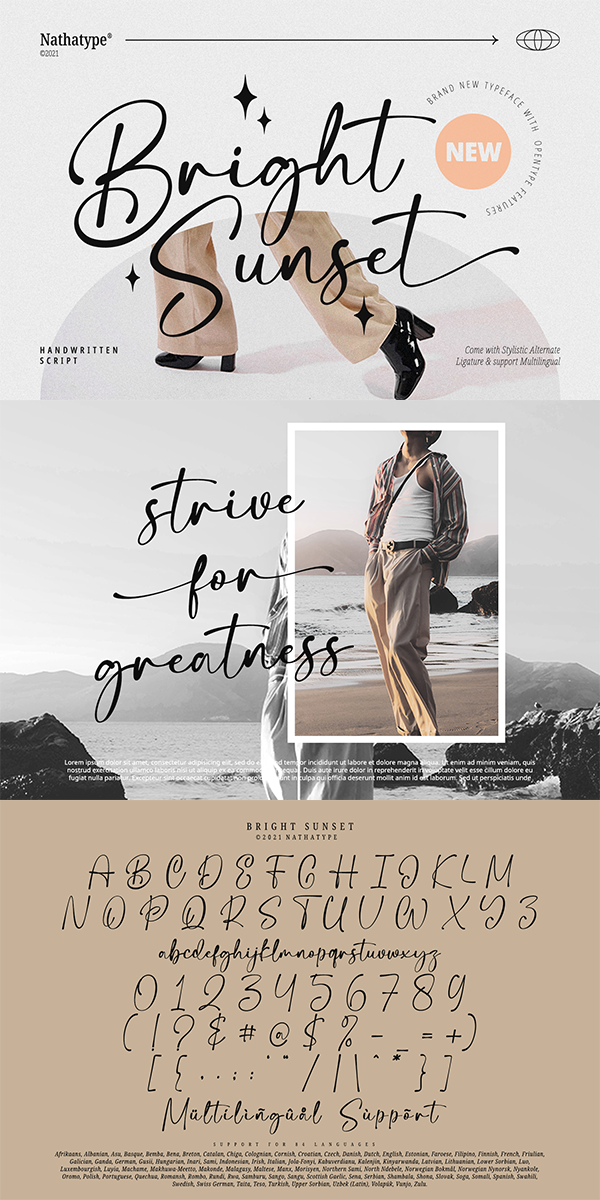
Bright Sunset Font
About Bright Sunset
Bright Sunset font is a typeface that combines elegance and a modern style. An easy-to-read typeface, with a touch of character, the font is highly adaptable to the modern style to fit in whatever your project needs. Create gorgeous printed quotes, standout packaging, or beautiful t-shirts!
Our font always includes Multilingual Support to make your branding reach a global audience. See the previews above to get to know how to use them. Enjoy the font!